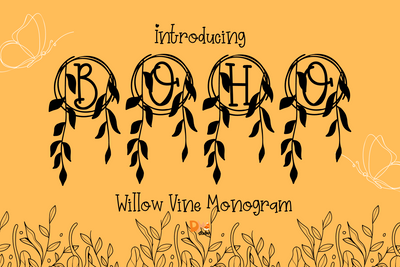
Willow Vine Monogram
Willow Vine Monogram – Elegant Serif Monogram Font with Botanical Willow Accents
Willow Vine Monogram is a sophisticated serif monogram font featuring graceful willow vine embellishments. Inspired by nature’s flow and soft elegance, each uppercase letter is adorned with delicate trailing vines, perfect for adding a romantic, earthy aesthetic to weddings, branding, and handcrafted gifts.
Willow Vine Detailing: Intricate botanical elements wrap around the letterforms, adding soft organic beauty.
Elegant Serif Base: Timeless serif structure ensures balance, legibility, and style.
Nature-Infused Design: Brings rustic, boho, and woodland vibes into refined typography.